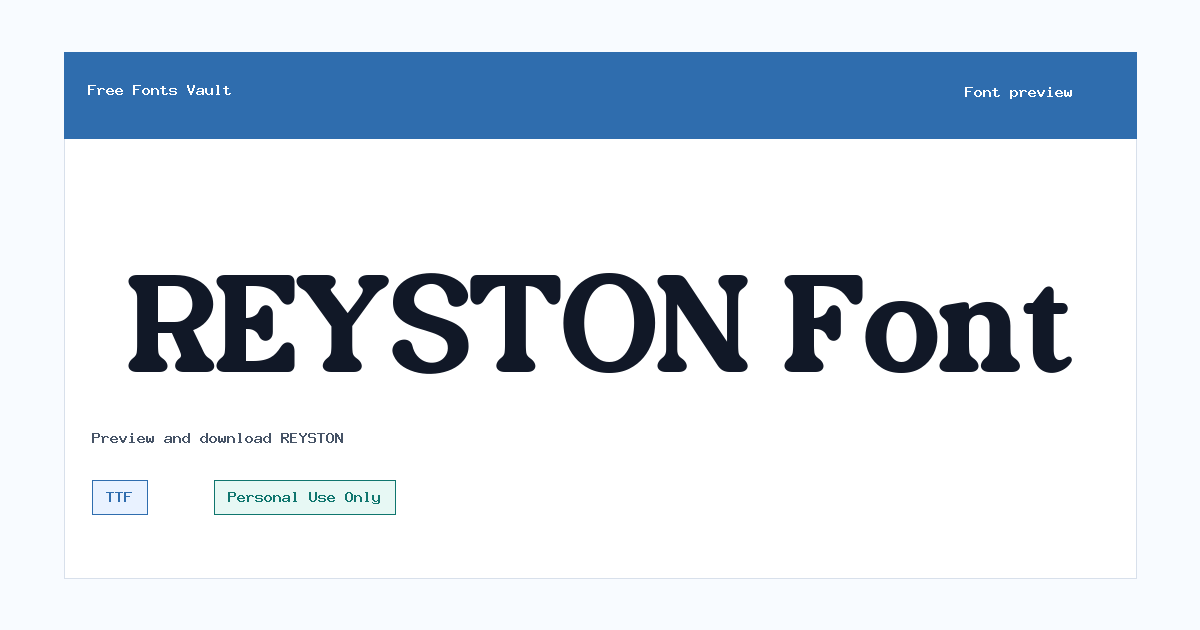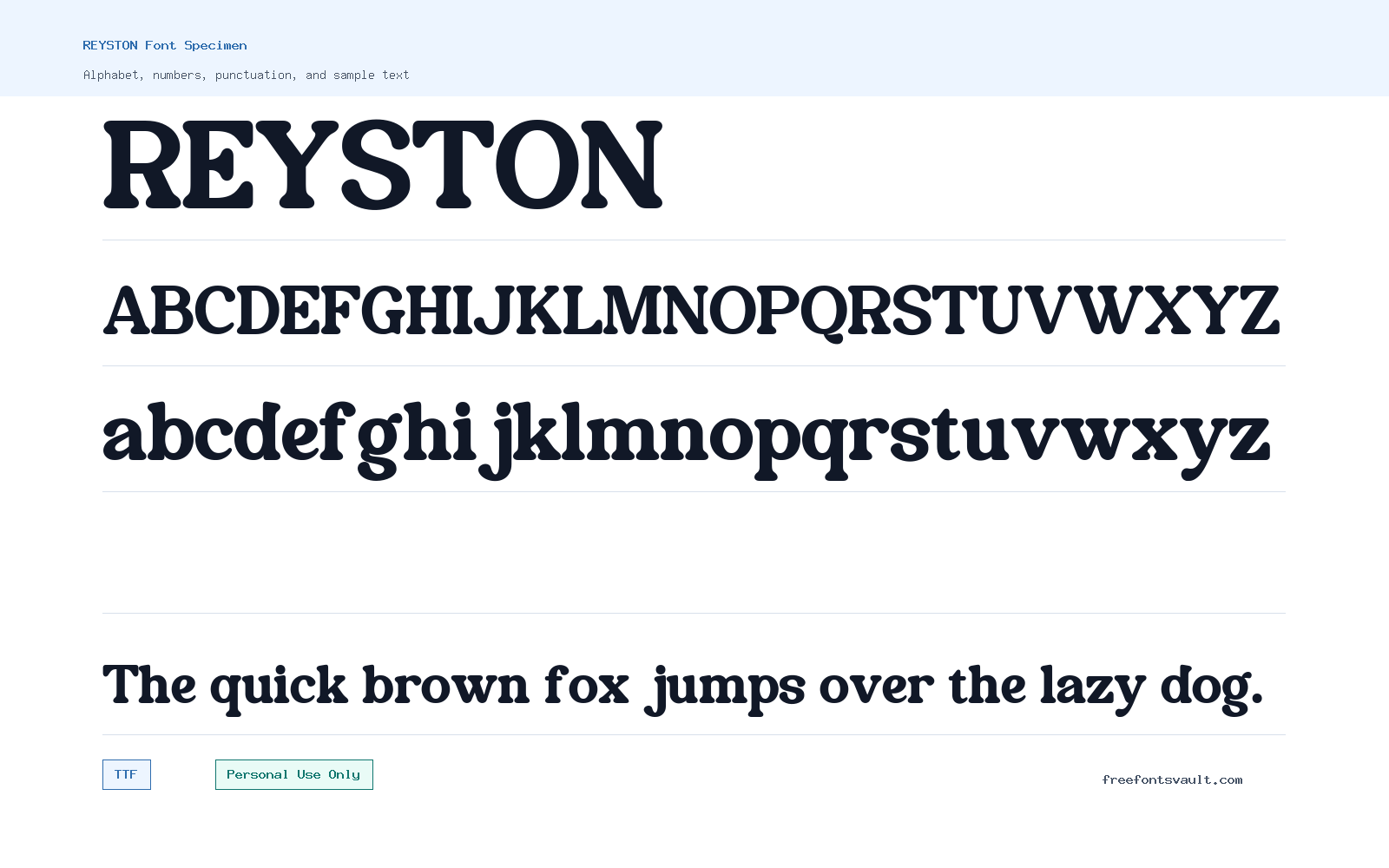
REYSTON
REYSTON font.
REYSTON is a serif display font with a polished, refined feel that works best when the text is meant to be noticed. It is a good choice to preview for logos, editorial-style headings, posters, packaging mockups, and other short pieces of text where shape and mood matter as much as readability.
About REYSTON Font
The serif construction gives REYSTON a more classic and composed tone than a plain sans serif, while the display-focused look makes it better suited to visual identity concepts than long paragraphs. Try it in all caps, title case, and a few short lowercase phrases before deciding how to use it. Some serif display fonts look excellent in large sizes but can lose clarity when reduced, so test REYSTON at the exact size you plan to use, especially for social posts, mobile previews, menus, and small packaging text.
- Serif display styling suited to short, high-impact text rather than long body copy.
- Logo drafts and brand concept mockups that need an elegant serif direction.
- Posters, covers, invitations, and editorial-style title layouts.
- Web and social media mockups where the font is used for headlines or feature text.
- Packaging concepts, labels, boutique-style graphics, and short promotional phrases.
- Font pairing experiments with simple sans serif body text for contrast.
For the best results, start by typing your actual project words in the preview box. REYSTON is likely to show its character most clearly in larger sizes, so test it as a headline, logo wordmark, poster title, or short quote before using it in smaller text. Pair it with a quiet sans serif or a simple readable serif for paragraphs, captions, and supporting information. If you use REYSTON in a logo concept, check the license carefully before handing the design to a client or using it for a real business identity.
What kind of projects is REYSTON good for?
It is best to test REYSTON for short display uses such as logo concepts, posters, titles, invitations, packaging mockups, and web headings.
Can I use REYSTON for body text?
It is better suited to display text. For long paragraphs, pair it with a more neutral, highly readable font and keep REYSTON for headings or emphasis.